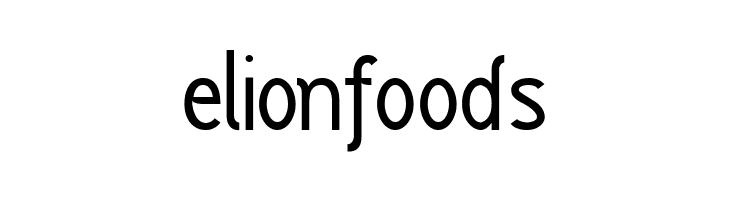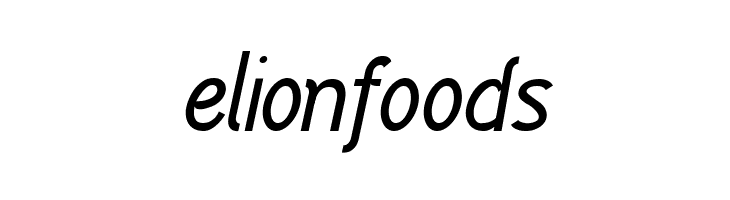
A set of bold, geometric symbols with a modern, artistic style.
A whimsical, curly font with bold, artistic characters.
A playful, health-themed decorative font with intricate medical imagery.
A whimsical, decorative font with tall, narrow letterforms and playful elements.
A whimsical and artistic font with elongated, curvy letterforms.
A bold, decorative font ideal for novelty and playful designs.
A decorative display font inspired by vintage theater signs with an Art Deco flair.
Ornate botanical and vegetable-themed dingbat illustrations.
A modern geometric font with clean lines and a balanced design.
A dynamic italic font with smooth, flowing lines and a modern aesthetic.